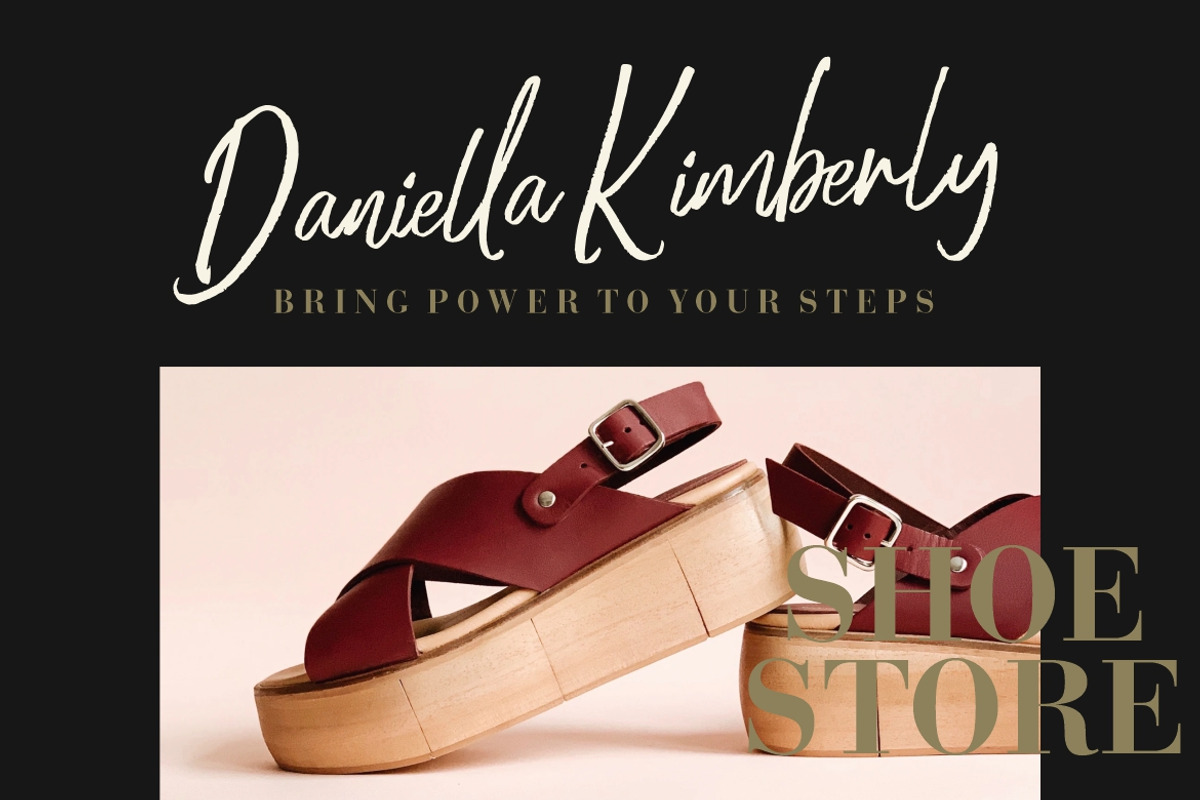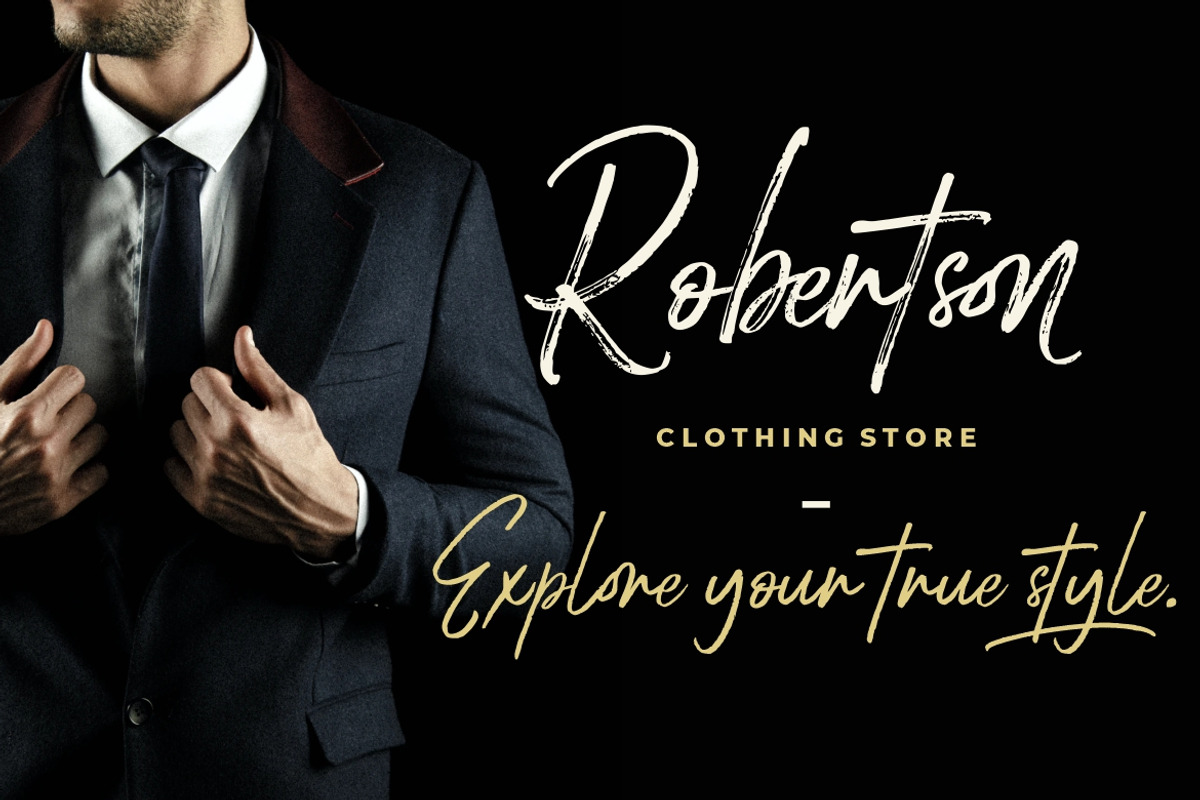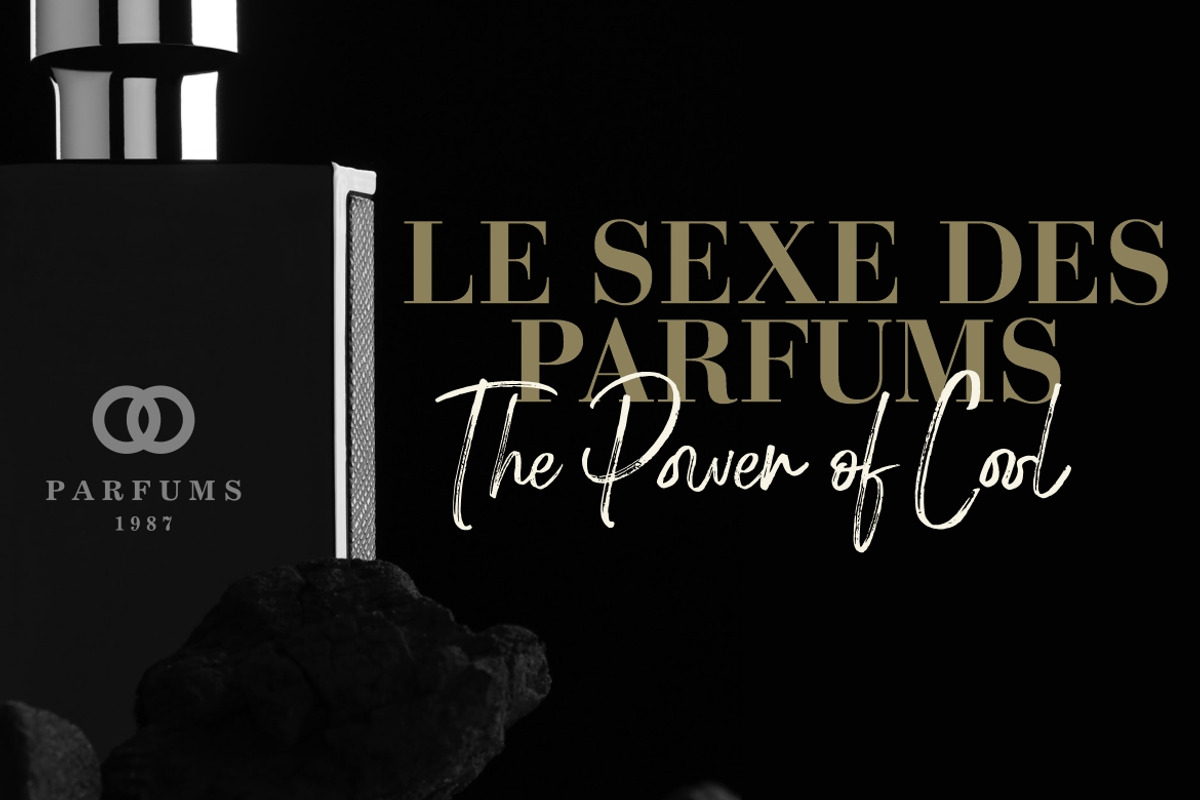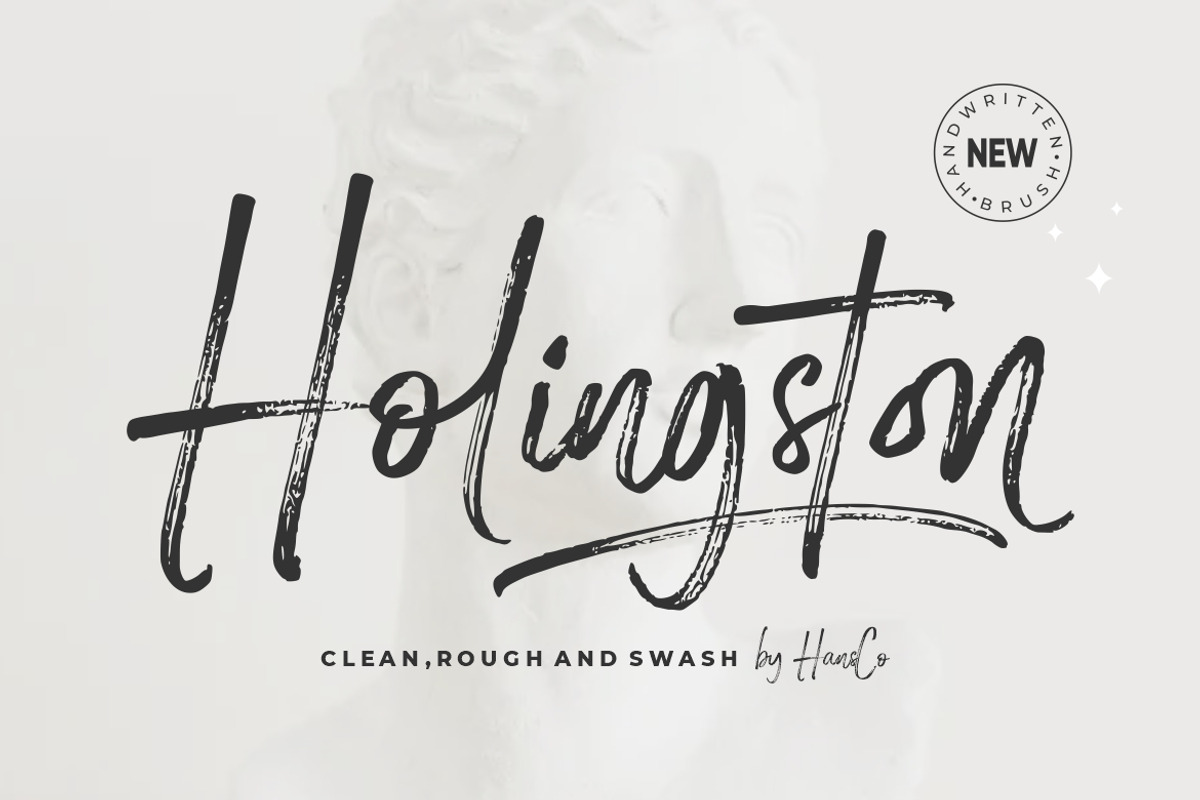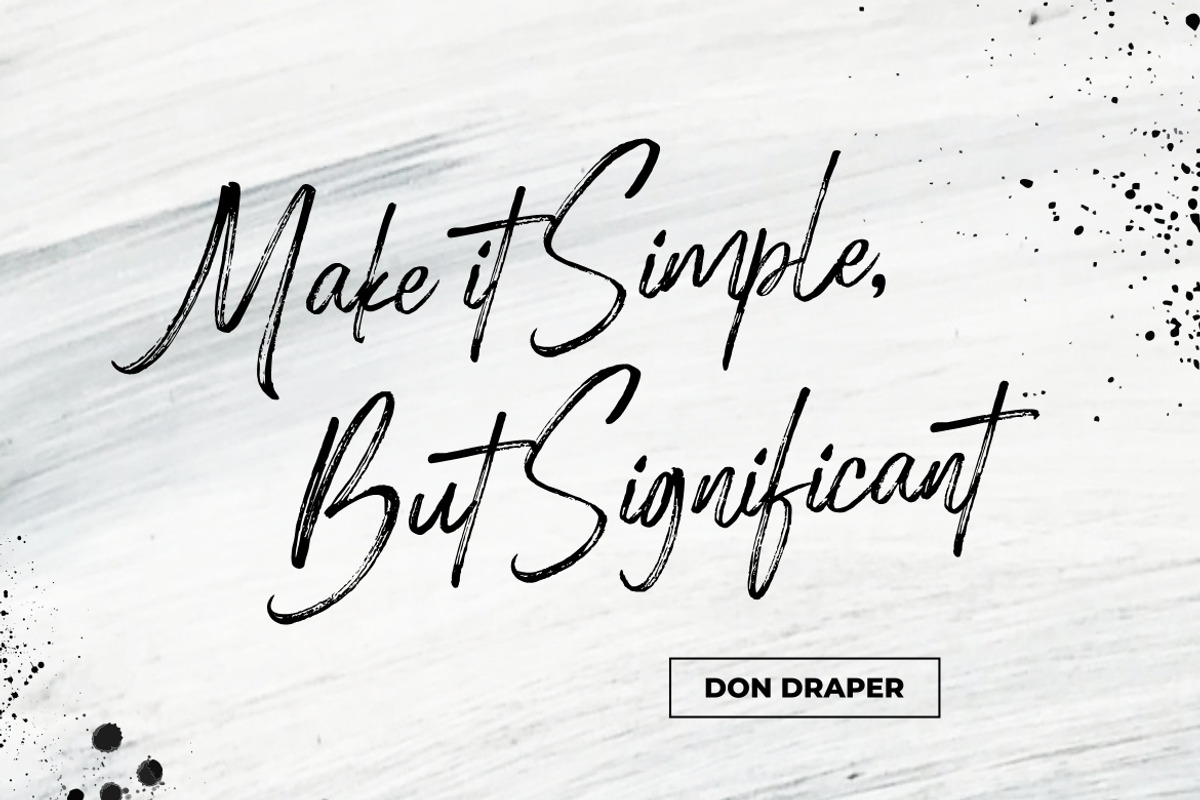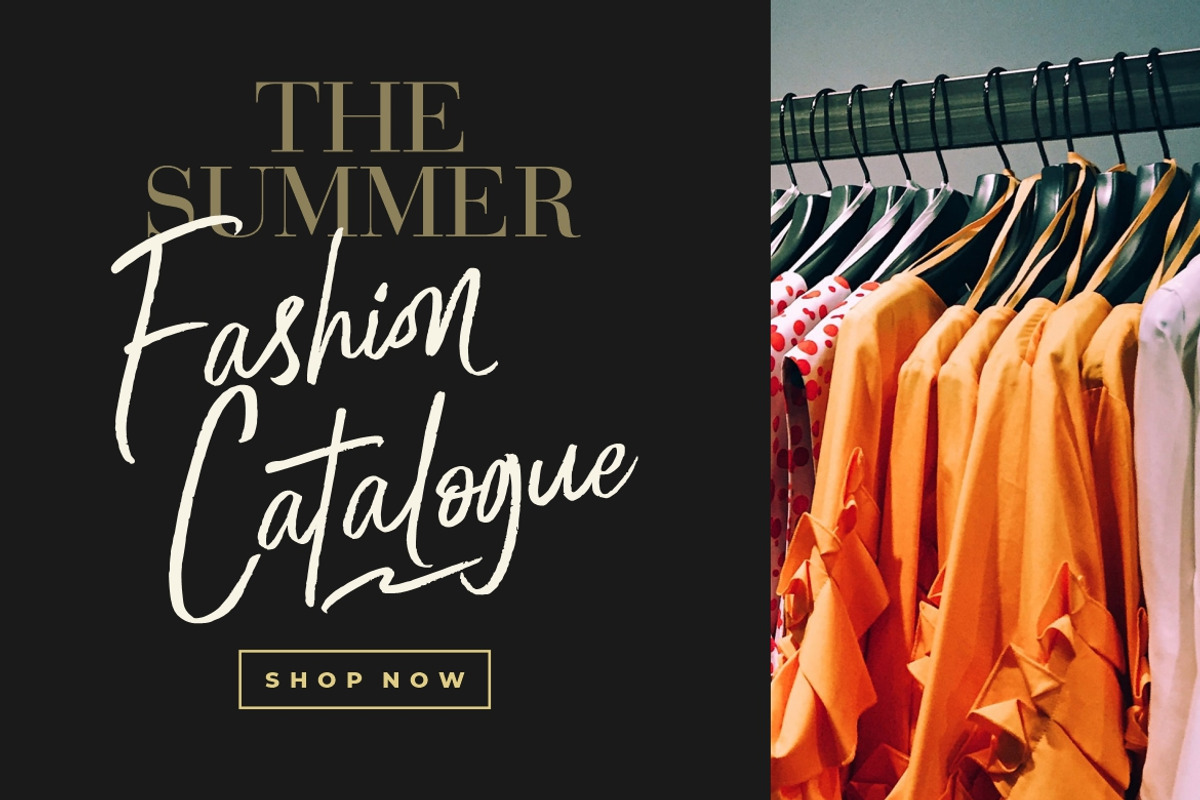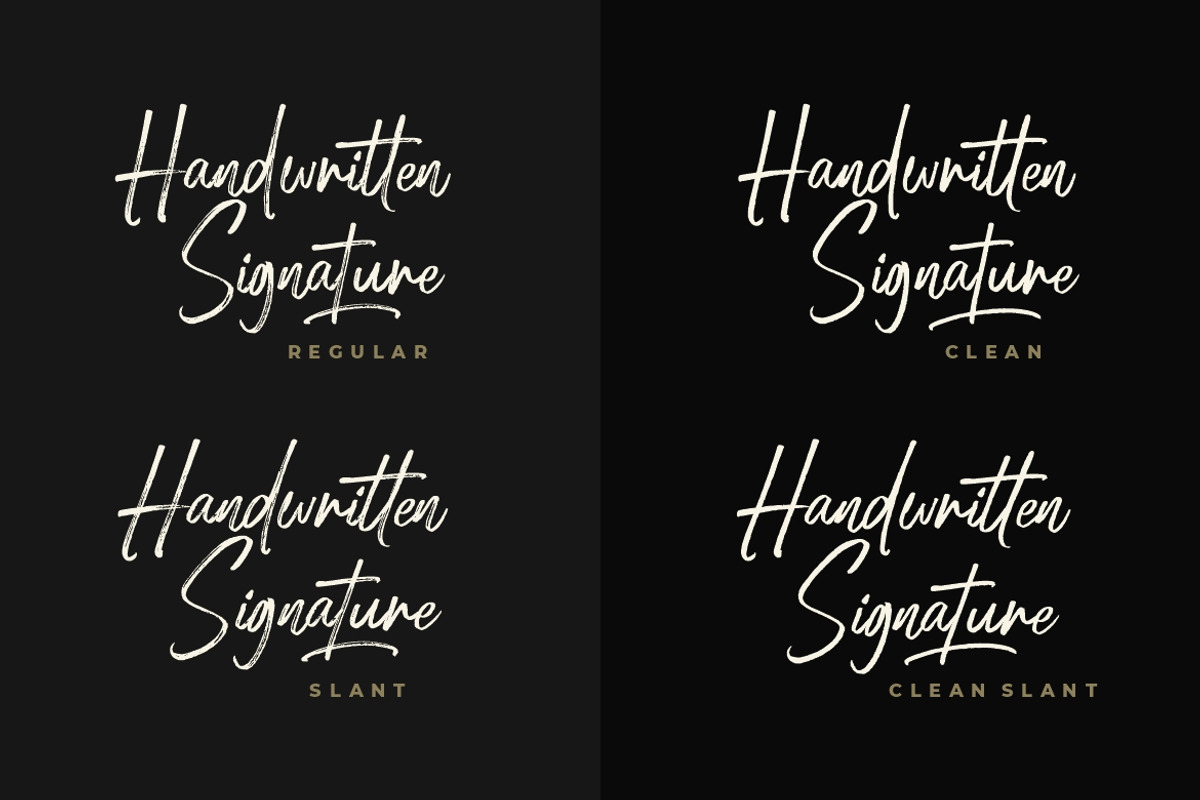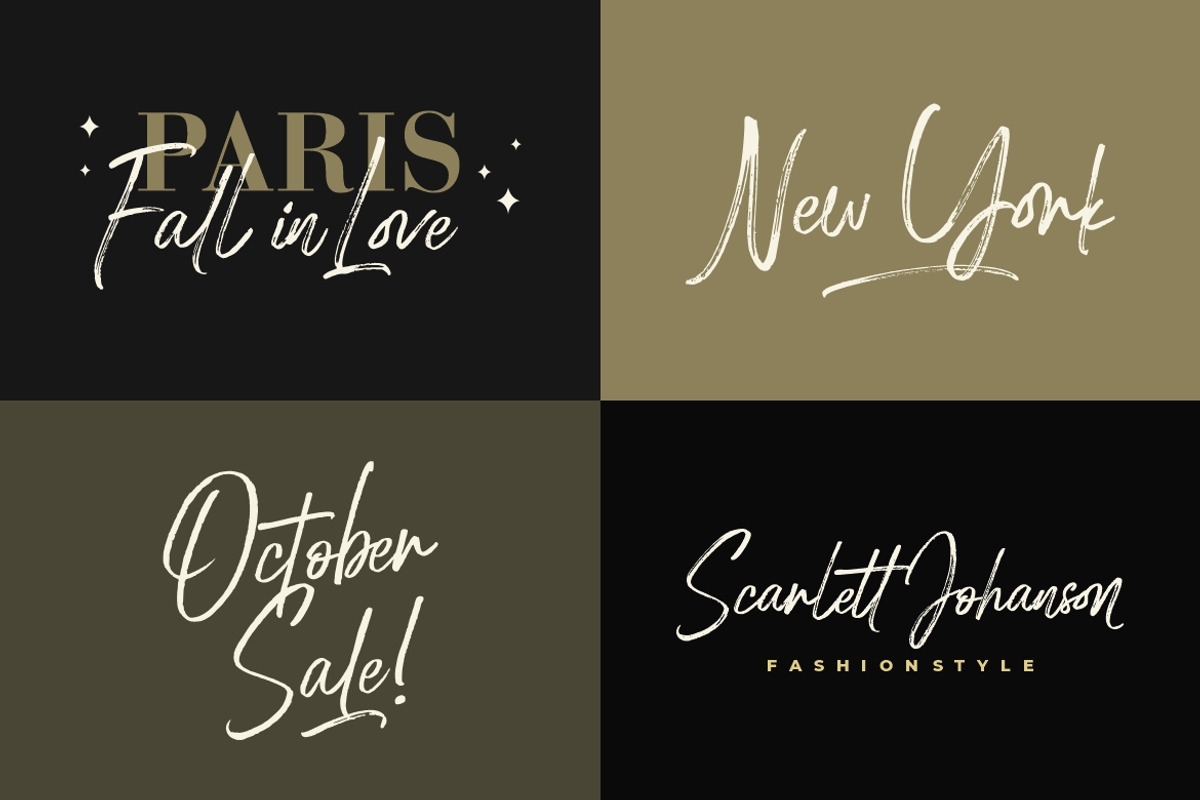
Holingston - Handwritten Brush Font
Holingston is a Handwritten brush script that is written casual and naturaly. the letters are made with brushes on paper and then scanned carefully drawn into vector format. This typeface is ideal for use in any professional project, such as blog titles, posters, wedding elements, t-shirts, clothing, book covers, business cards, greeting cards, branding, merchandise etc. It has 4 styles, regular, regular slant, clean and clean slant variations, this package is also has many alternatives underlines that make your text and design more interesting.